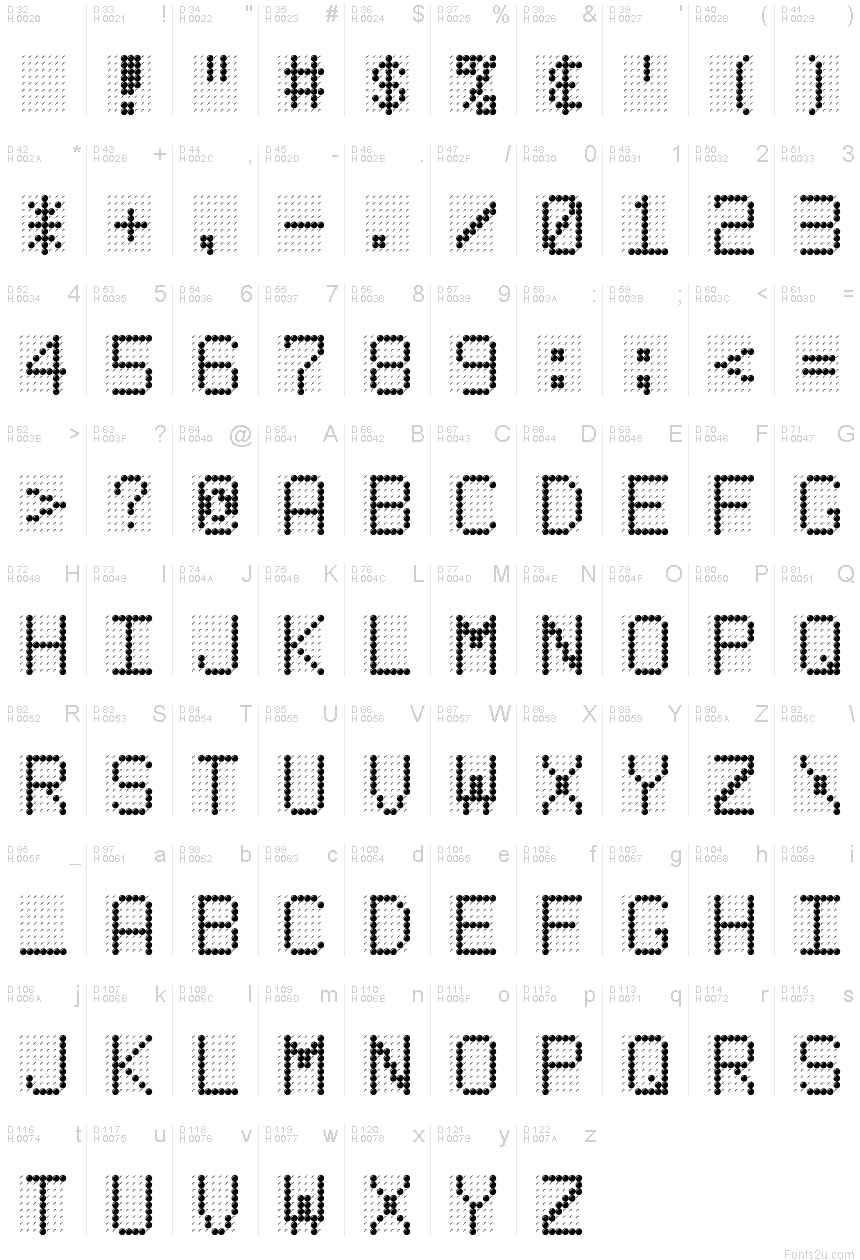
LED BOARD REVERSED
LED BOARD REVERSED, designed by Paul Hustava in 2000, is a free digital display font built from round LED-like dots. The repeated circles keep the lettering tied to a board-light pattern, so the whole set feels like a sign made from lit modules rather than a standard alphabet.
It makes sense on scoreboard graphics, arcade posters, concert flyers, app splash text, and tech event banners. Short logos and label copy benefit too, because the dot-built forms echo electronic readouts and keep the message tied to a digital sign aesthetic.